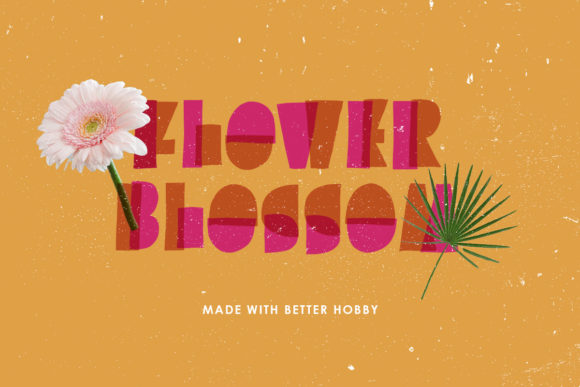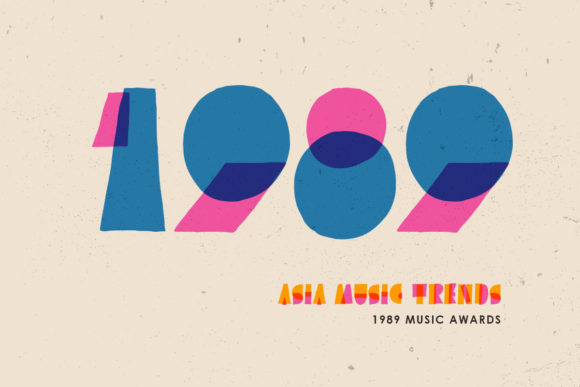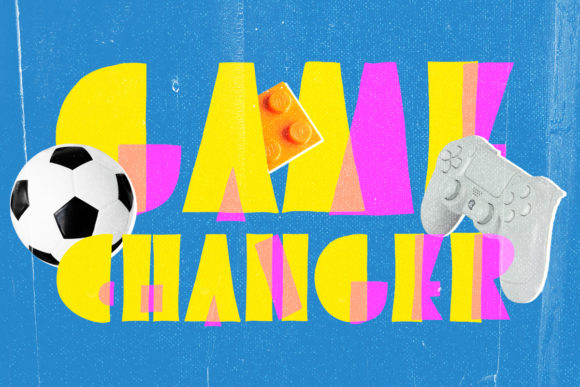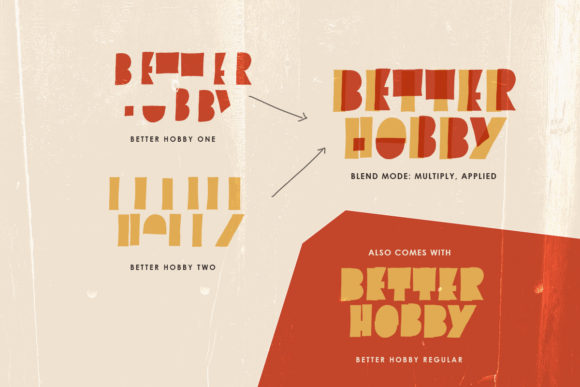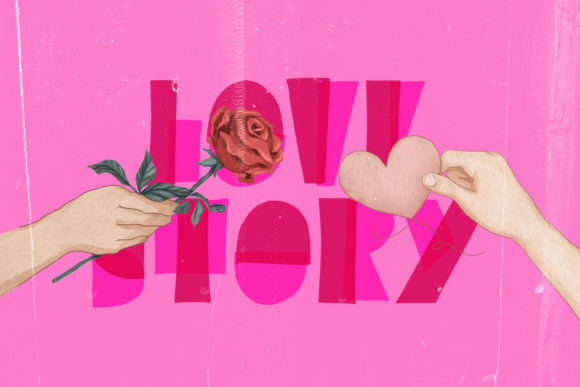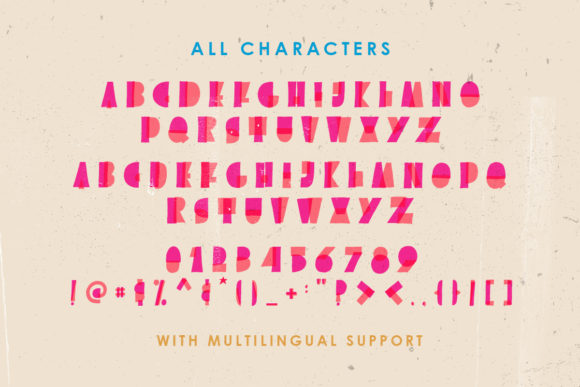
The Perfect Font for Unleashing Your Inner Child
Have you ever been stuck on a design project, staring blankly at your computer screen, and suddenly, a burst of creativity strikes? For me, it was a childhood memory of playing with colorful markers and crayons that sparked an idea for a new design. And that’s exactly what inspired the creation of the Better Hobby Font – a fun, trendy, and uniquely playful display font.
Better Hobby Font is specifically designed for children-themed designs, where its bright and bubbly personality shines. Whether you’re creating a kids’ book, a birthday party invitation, or a fun educational resource, this font is the perfect companion to bring your ideas to life. As a designer, you’ll love the versatility and expressiveness of Better Hobby Font, making it a valuable addition to your design toolkit.
Better Hobby Font Key Features
- Character Set: The font includes a wide range of characters, including uppercase and lowercase letters, numbers, punctuation, and special characters, making it suitable for various design applications.
- Unique Characteristics: Better Hobby Font features a unique blend of modern and vintage elements, making it an ideal choice for designs that require a touch of nostalgia and sophistication.
Better Hobby Font Review
Overall, I think the “Better Hobby Font” is a solid choice for designers, but it has its limitations. Here’s a breakdown of what works well and what doesn’t.
- Unique character set: The font has a distinct, hand-drawn feel that sets it apart from more generic fonts.
- Legibility: The font is easy to read, even at smaller sizes, making it suitable for a wide range of applications.
- Customization options: The font includes a range of customization options, such as different weights and styles, to help designers tailor it to their needs.
- Limited scalability: While the font is legible at smaller sizes, it may not scale as well as more modern fonts, potentially leading to pixelation or distortion at very large sizes.
- Lack of consistency: The font’s hand-drawn feel can sometimes result in inconsistent spacing and alignment, which may be jarring for designers who prefer more precise typography.
The “Better Hobby Font” is a good choice for designers who want a unique, hand-drawn feel for their projects. While it has some limitations, its customization options and legibility make it a solid option for a wide range of applications. However, designers who prioritize scalability and consistency may want to consider alternative fonts.
Introduction to Better Hobby Font
Better Hobby Font is a versatile and modern font designed for creatives and hobbyists. It’s perfect for adding a touch of elegance to your projects, making them stand out from the crowd.
Tips for Getting the Most Out of Better Hobby Font
Here are some tips to help you get the most out of Better Hobby Font:
- Use it sparingly to add emphasis to important text.
- Pair it with other fonts to create a unique and interesting typography combination.
Better Hobby Font is perfect for:
- Wedding